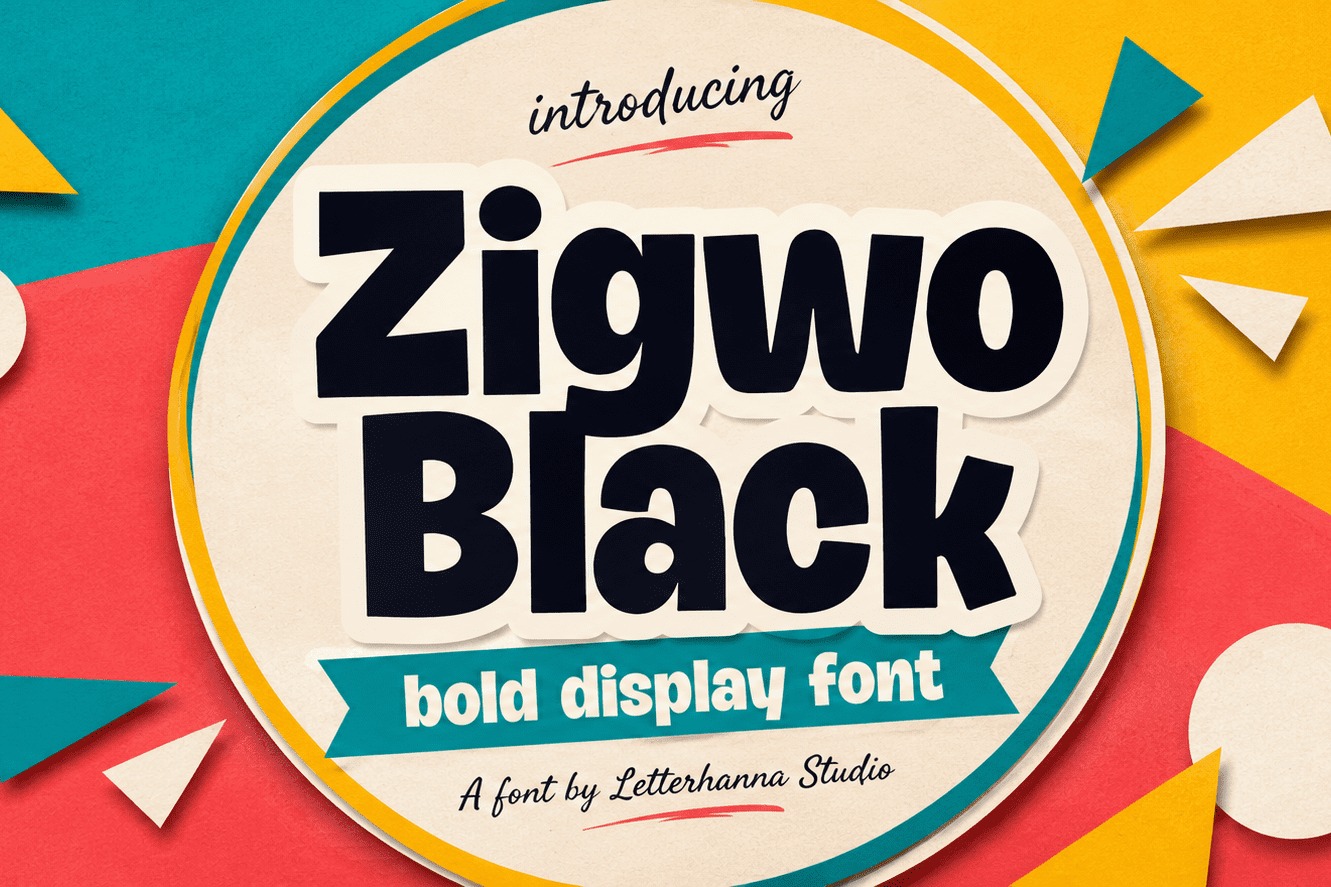
Zigwo Black – Bold Diplay Font
Zigwo Black – Bold Diplay Font is a stylish typeface that enhances visual appeal and works effortlessly in many design contexts. Zigwo Black sits in that sweet spot between graphic toughness and everyday charm. The strokes are thick and even, giving the font real visual weight, while the slightly rounded, hand-finished edges keep it from feeling cold or overly mechanical. Uppercase letters feel like solid stamped blocks, ready to headline a poster or a product label. Lowercase letters are compact and springy, adding a bouncy rhythm that softens the font’s overall boldness.
This is the kind of chunky font that reads as friendly rather than aggressive — a rare balance. It works because the thickness never overwhelms the structure. Counters stay open, spacing stays even, and every letter maintains its own identity even in a tightly packed headline.
The Vibe: Loud, Warm, and Full of Energy
If Zigwo Black had a voice, it would be enthusiastic rather than intimidating — the kind of energy you’d expect from a hand-painted sign at a summer fair, or bold lettering on a favorite snack bag. It’s a font that feels handmade, energetic, and a bit nostalgic, without ever losing its modern clarity. That combination is what makes it so versatile: playful enough for a kids’ brand, bold enough for streetwear, and clean enough for professional packaging design.